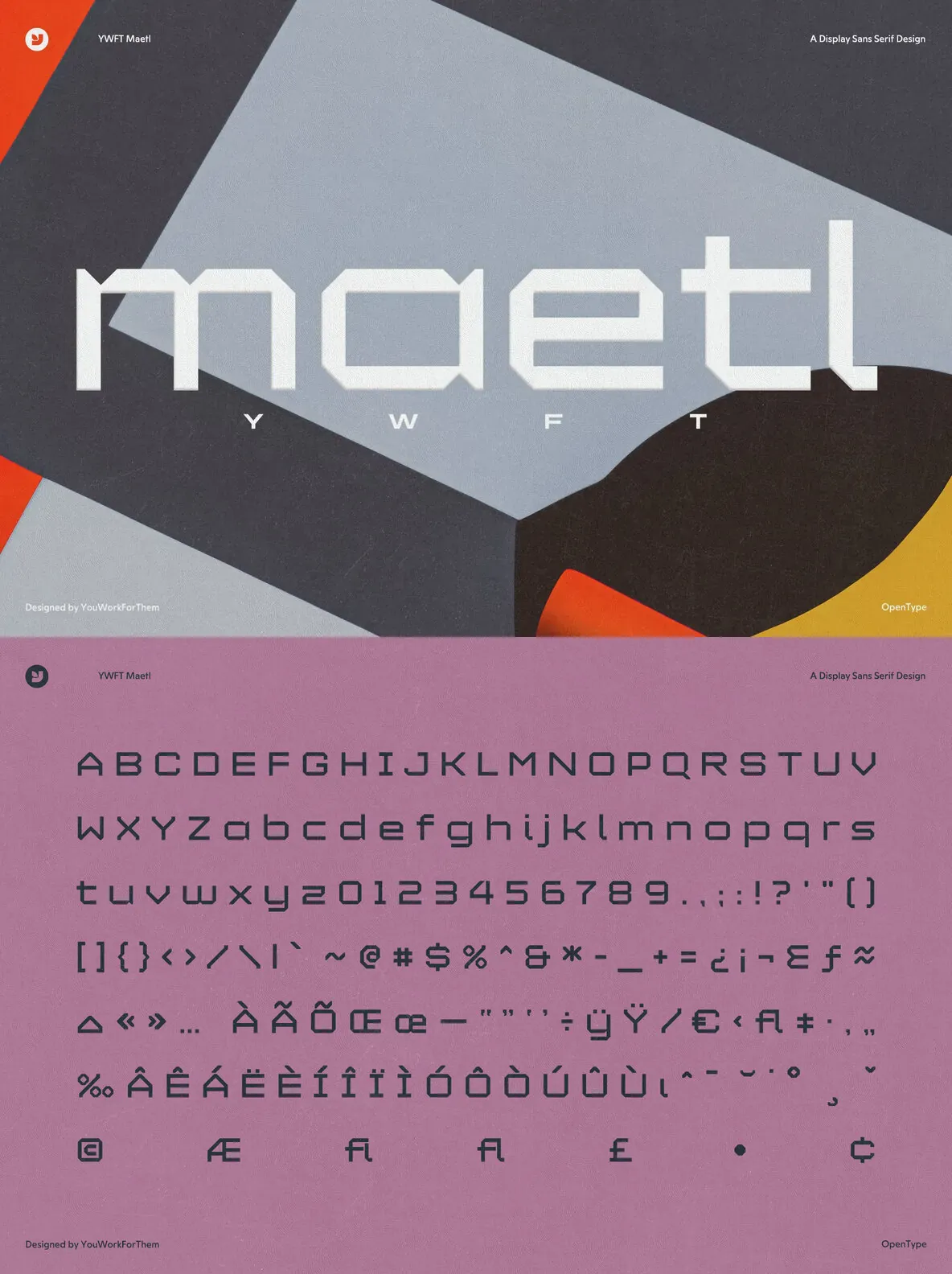
Brought to life by the talented design team behind “YouWorkForThem”, the YWFT Maetl Typeface ventures into the intriguing world of hand-drawing bitmap typefaces. It’s not just a typeface but an exploration of what manifests when the boundaries of conventional design are pushed. With its conception focusing exclusively on what emerges when bitmaps are transformed owing to intrinsic human touches, YWFT Maetl questions expectations and tests the creative horizontal.
This product takes a fresh stance, providing you with an artistic typeface design that draws its essence from hand-drawn bitmaps. The final renderings are stunning, revealing minimal serif details on select letters and exhibit fascinating angles that add an air of sophistication and dynamism to your graphic design ventures. Perfect for graphic designers and marketing firms seeking a one-of-a-kind feel to their projects, YWFT Maetl is a revelation in the realm of typefaces.
Innovative and explorative design conception
Minimal serif details on specified letters
Fascinating angles adding depth and interest
Ideal for graphic design and digital marketing projects